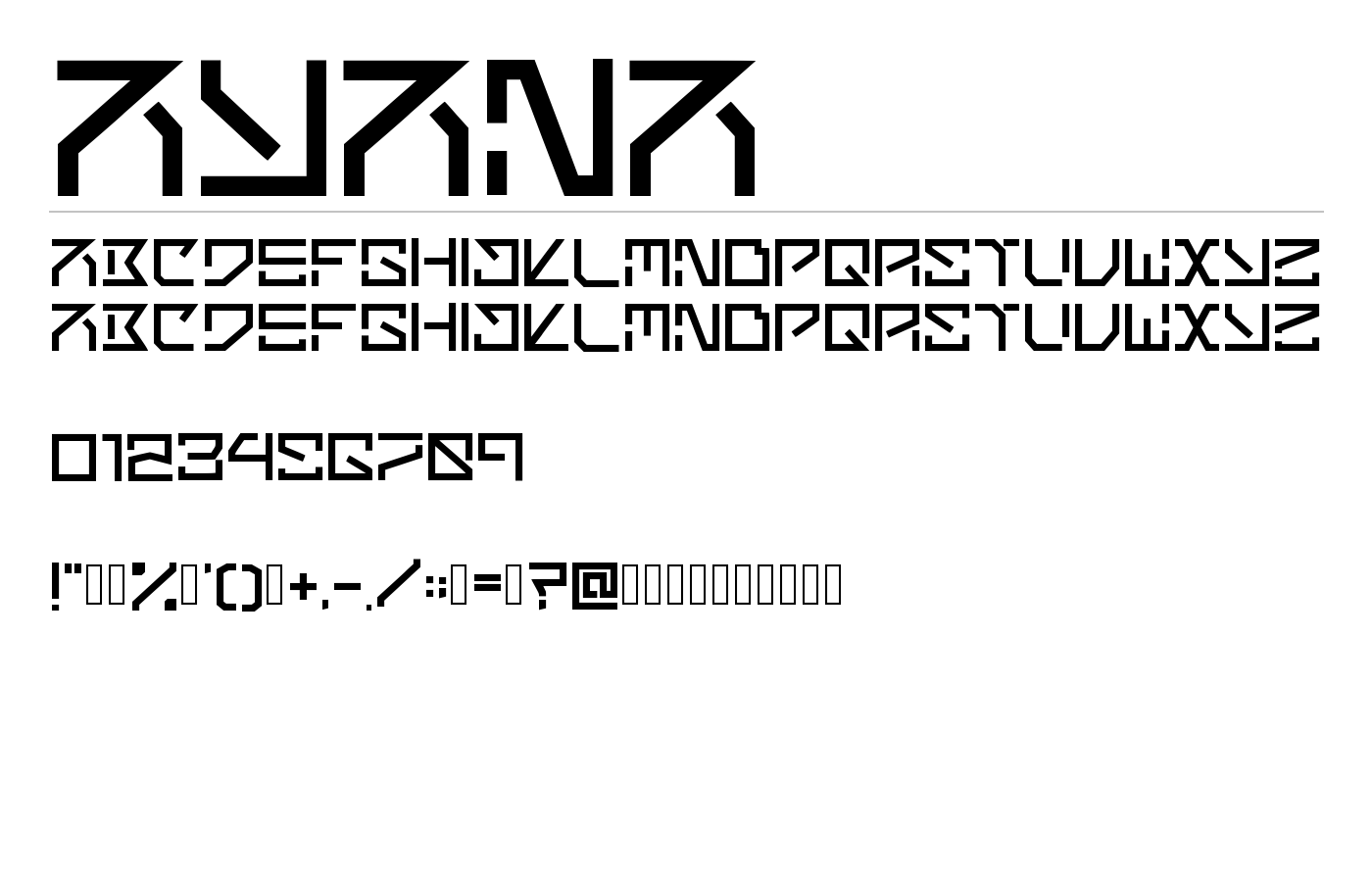
Ayana Font is a striking, geometric sans serif typeface with a futuristic, almost sci-fi feel. Its bold, angular shapes and sharp edges create a strong, technical impression, making it ideal for modern branding, technology-themed projects, and eye-catching headlines that demand attention. This font works best in display settings where its unique stylistic elements can shine, such as logos, posters, and digital interfaces.
Ayana Font